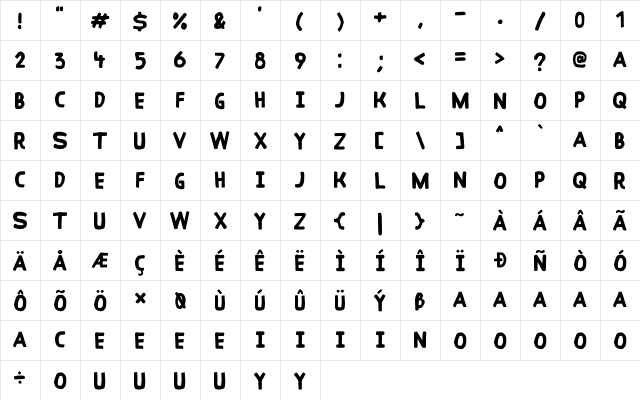
Coral Reef Regular
Design Context for Coral Reef Typeface
Coral Reef offers clean, dependable letterforms without strong stylistic allegiance, making it a practical choice for designers who need flexibility.
Pro Tip: Use Coral Reef in both headline and body roles to test its range before committing to a single application.